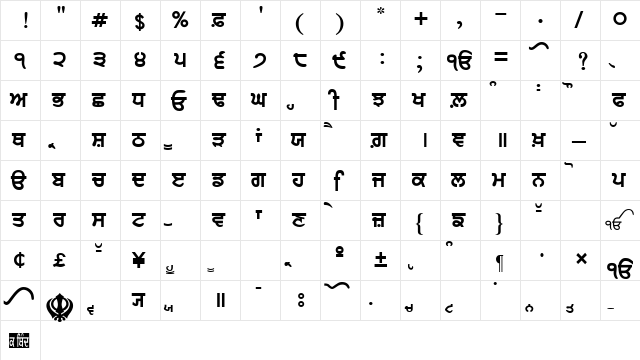
GurbaniWebThick Regular
Design Context for GurbaniWebThick Typeface
GurbaniWebThick is a composed and adaptable typeface that performs quietly and consistently across a wide range of design contexts.